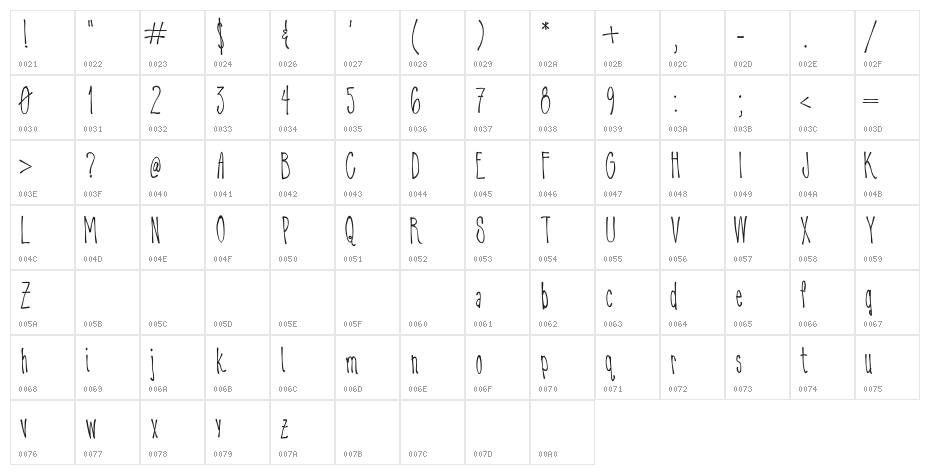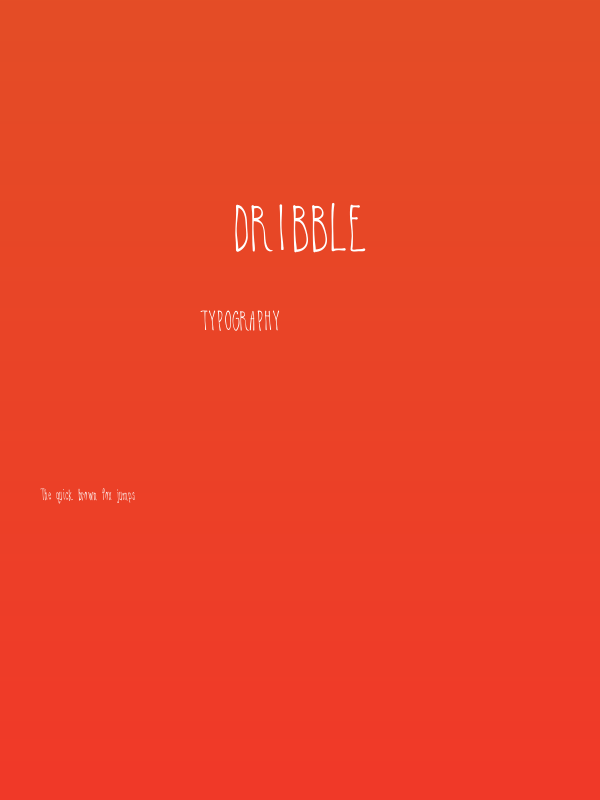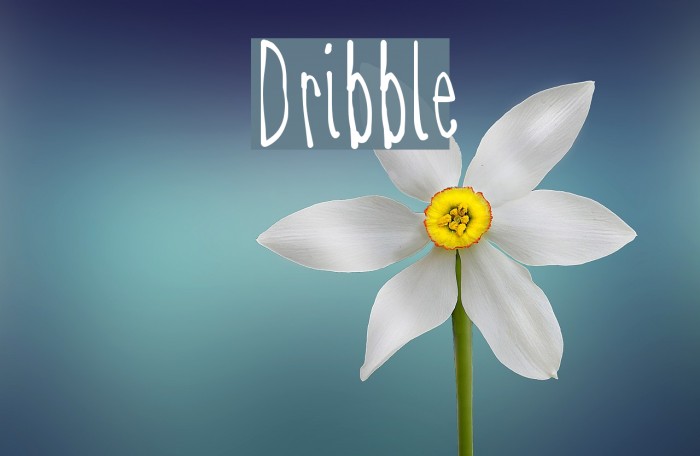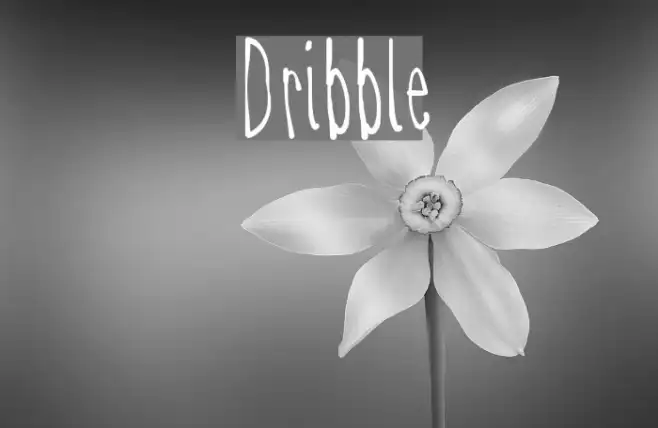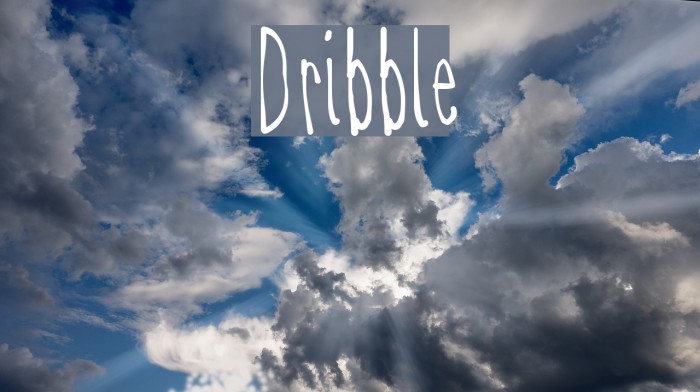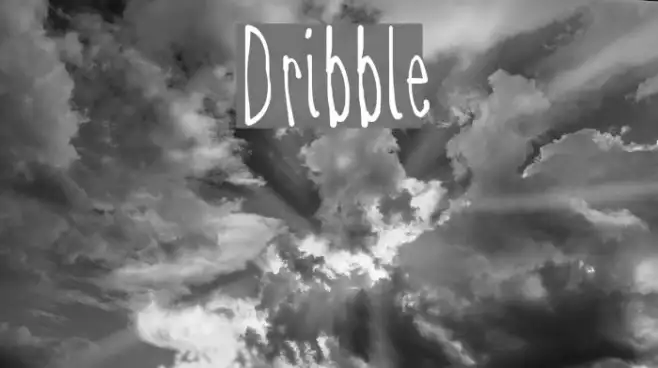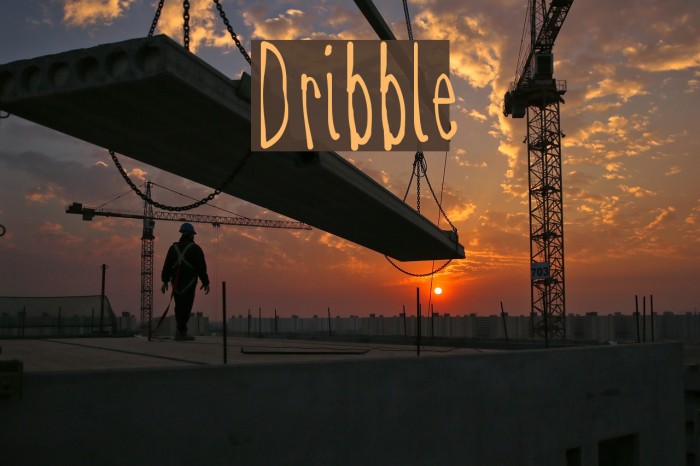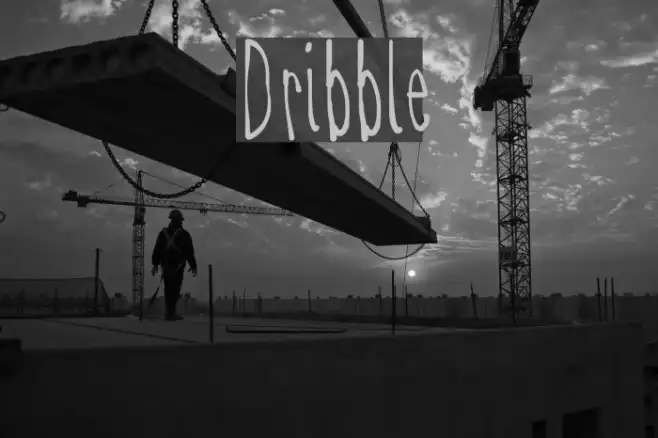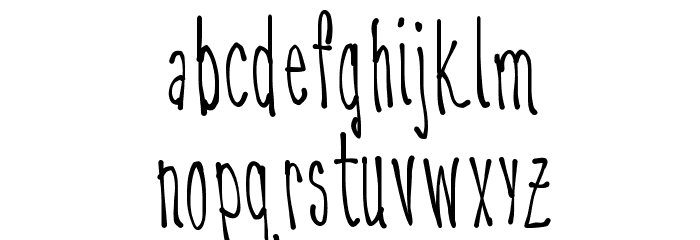
Dribble Font
Dribble Description
This playful and whimsical font features tall, narrow characters with a hand-drawn aesthetic. The strokes are uneven, adding a casual and artistic flair. Uppercase and lowercase letters maintain a consistent style, with slightly exaggerated curves and loops. The numbers and special characters follow the same quirky design, making the font cohesive and visually engaging. Its unique style is perfect for projects that require a touch of creativity and personality.
| Use Case | Headlines, Artistic projects, Branding |
| Proposed Projects | Ideal for children's books, creative posters, greeting cards, and artistic branding projects. |